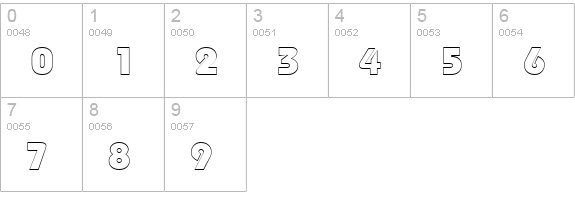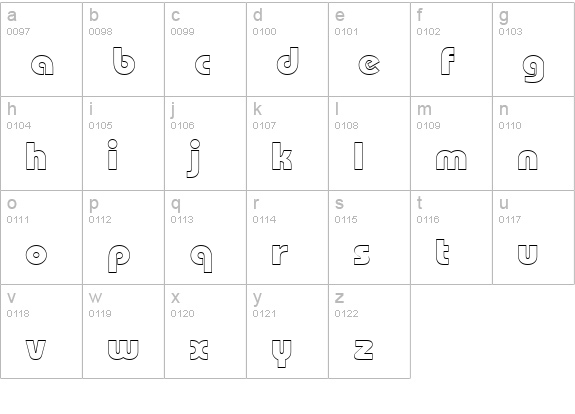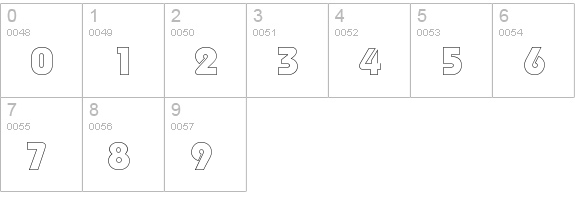
BordeauxBlackOutline Regular is the standard, neutral variant in the BordeauxBlackOutline typeface family \xE2\x80\x94 well suited to general body text, paragraphs, and standard typographic work.
BordeauxBlackOutline Regular font is a striking and bold typeface that exudes elegance and sophistication. Its sleek and modern design makes it perfect for a wide range of design projects, from branding to packaging to editorial design. The clean lines and sharp edges of this font add a touch of contemporary flair to any project. The best part about BordeauxBlackOutline Regular font is that it is available for free download at FontsMarket.com. This means you can easily access this stylish font and incorporate it into your designs without any cost. Whether you're a graphic designer, a marketing professional, or a hobbyist looking to elevate your projects, BordeauxBlackOutline Regular font is a fantastic choice that won't break the bank. Embrace the versatility and impact of BordeauxBlackOutline Regular font in your next design project and make a bold statement with this sleek and modern typeface. Download it for free at FontsMarket.com today and see how it can elevate your designs to new heights.